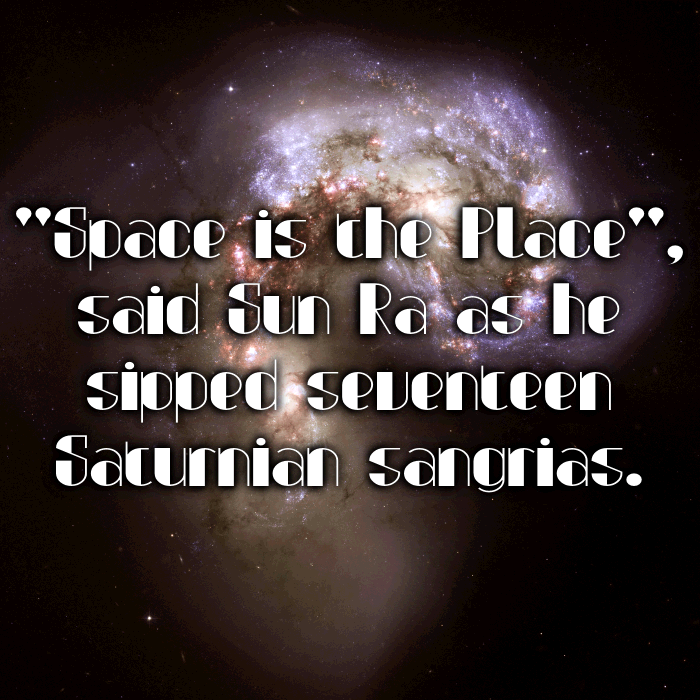
Laconica Font
About Laconica Font
An informal Art Deco design I made for a friend. Supports Danish, Dutch, English, Finnish, French, German, Greek, Hungarian, Icelandic, Italian, Norwegian, Polish, Portuguese, Spanish, and Swedish!
3 years agoAdded an outline variant called Laconica Skeleton, enjoy! 😃